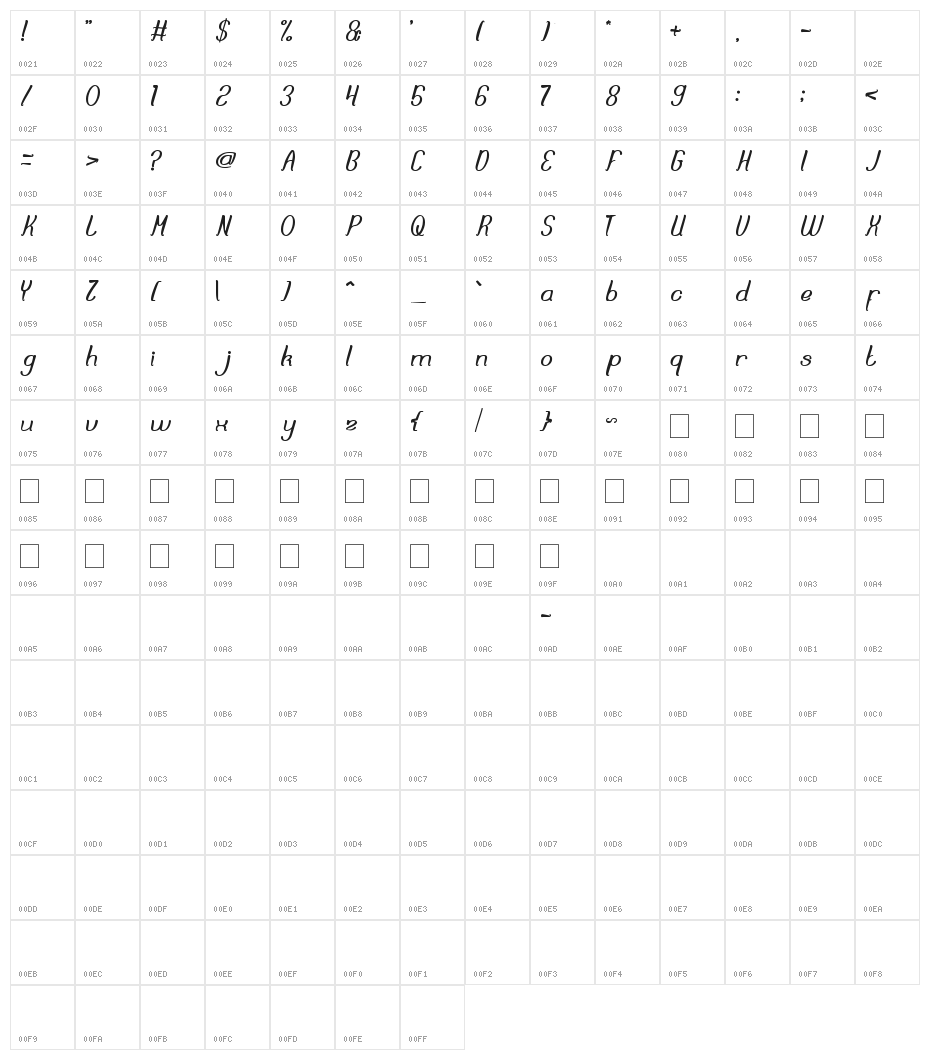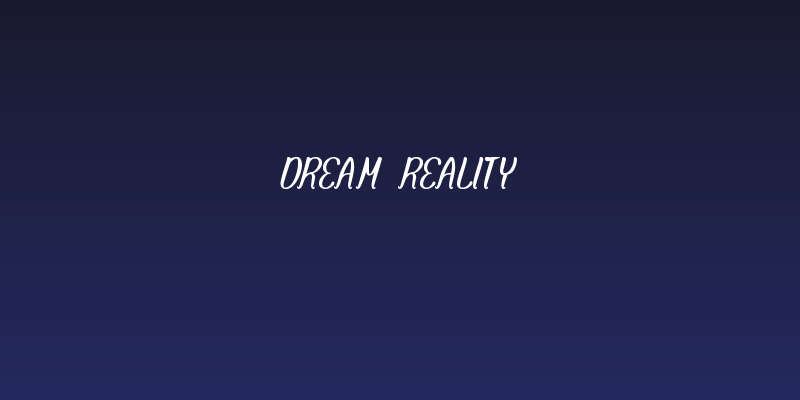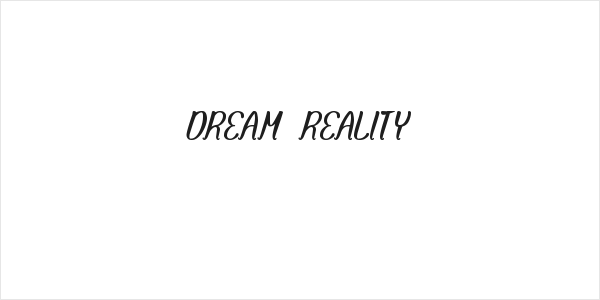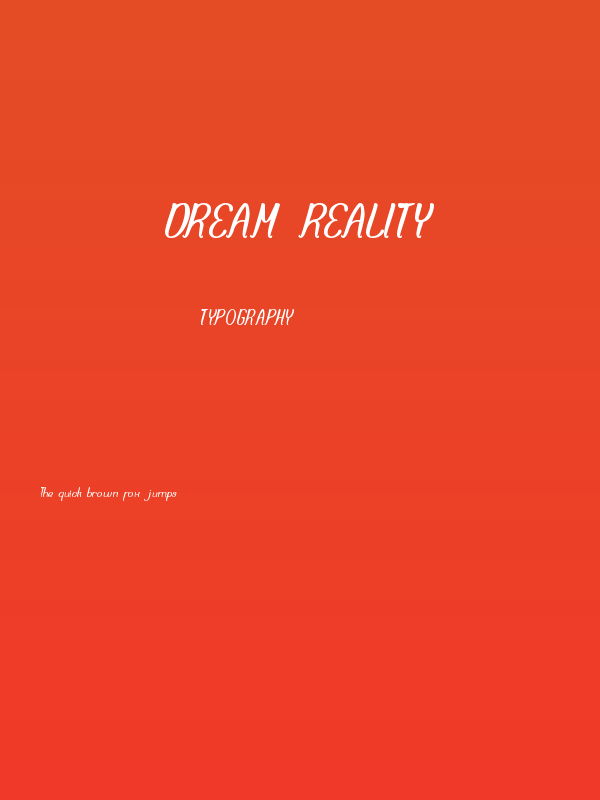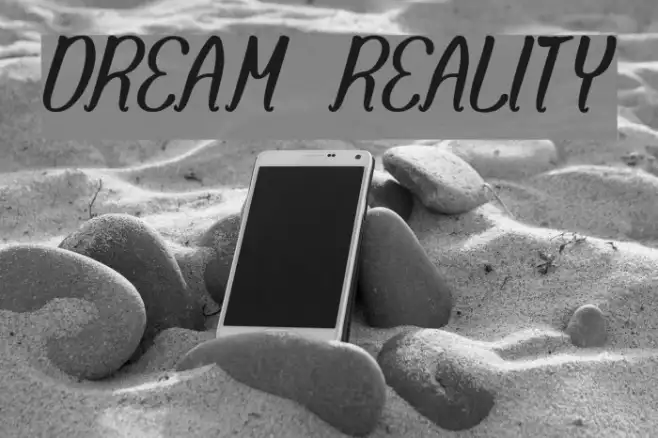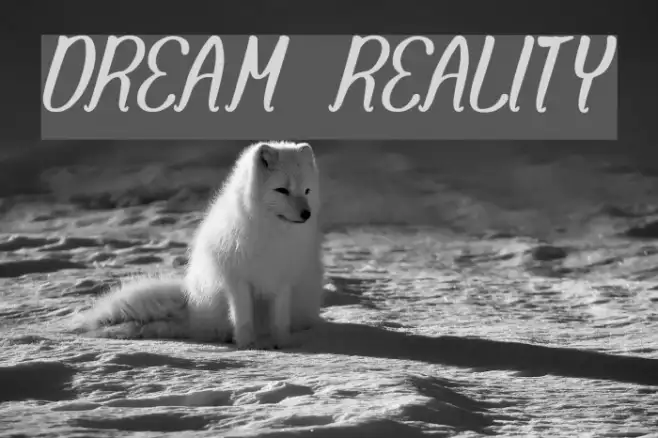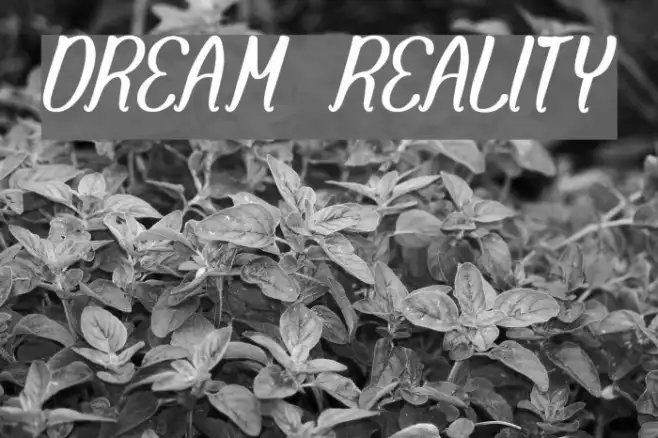
DREAM REALITY Font
DREAM REALITY Description
This font exhibits a charming and fluid script style, characterized by its elegant, flowing curves and smooth connections between letters. The uppercase letters are slightly more formal, with a consistent slant and rounded edges, while the lowercase letters maintain a playful and approachable feel. The numerals are well-integrated into the overall design, offering a cohesive look. Special characters are crafted with the same attention to detail, ensuring versatility across various applications. The font's overall appearance is both sophisticated and friendly, making it suitable for a wide range of creative projects.
| Overall Style | Elegant and Friendly |
| Use Case | Logos, Invitations, Decorative Text |
| Proposed Projects | Ideal for wedding invitations, greeting cards, branding projects, and elegant packaging designs. |